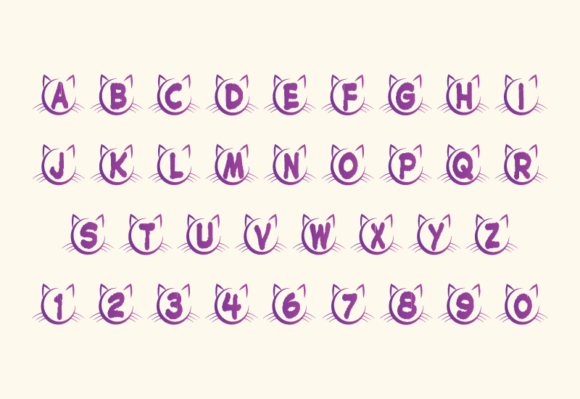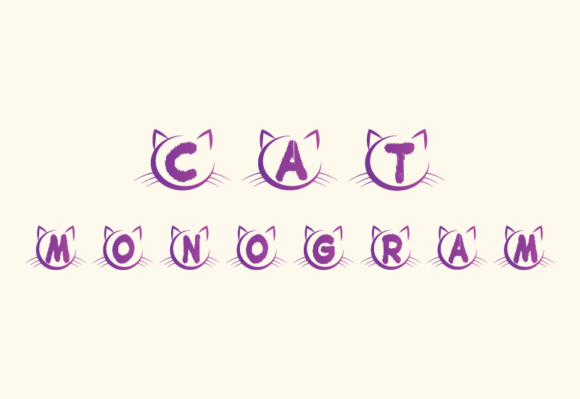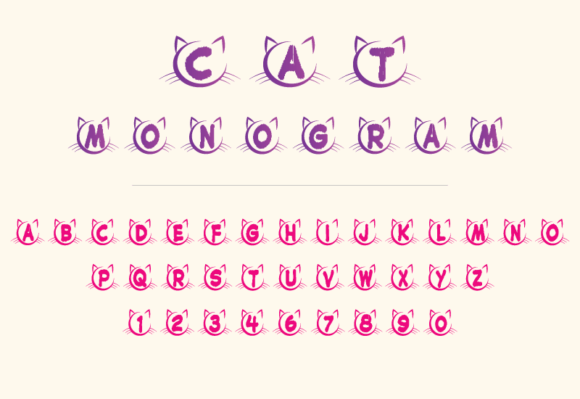
The Purrfect Font: A Deep Dive into Cat Monogram Font
I’ll never forget the time I was working on a branding project for a cat cafe, and I just couldn’t find the right font to capture the playful, whimsical vibe I was going for. The client wanted something that would appeal to cat lovers of all ages, and I was determined to deliver. That’s when I stumbled upon Cat Monogram Font, and it was love at first sight! ✨
Cat Monogram is a happy font that will bring your design into a happy and fun mood. This font is perfect for branding, packaging, logotype, headline, wedding invitation, and more. In this article, we’ll take a closer look at what makes Cat Monogram Font so special, and how you can use it to elevate your designs.
- ✨ Unique and playful monogram designs that add a touch of personality to any project
- 💕 Extensive character set, including support for multiple languages
- 🎉 OpenType features, such as stylistic alternates and glyphs, for added customization
While Cat Monogram Font is an amazing font, there are a few things to keep in mind: 🤔
- ⚠️ Some of the monogram designs can be a bit quirky, so it’s essential to test them out in your design to ensure they work well in context
- ⚠️ The font may not be suitable for very formal or traditional designs, as it has a distinctly playful vibe
The Designer Inspiration Behind Cat Monogram Font
According to the font’s designer, Cat Monogram Font was inspired by the joy and playfulness of cat culture. The designer wanted to create a font that would capture the whimsical, carefree spirit of cat lovers everywhere. And with its unique monogram designs and extensive character set, Cat Monogram Font is sure to delight designers and cat lovers alike! 🐱
Q: What is Cat Monogram Font?
A: Cat Monogram Font is a fun, playful font designed specifically for creative projects, such as branding, packaging, and logotypes.
Q: Is Cat Monogram Font suitable for body text?
A: While Cat Monogram Font is highly legible, it’s best suited for headlines, titles, and short paragraphs. For body text, you may want to consider a more traditional font.